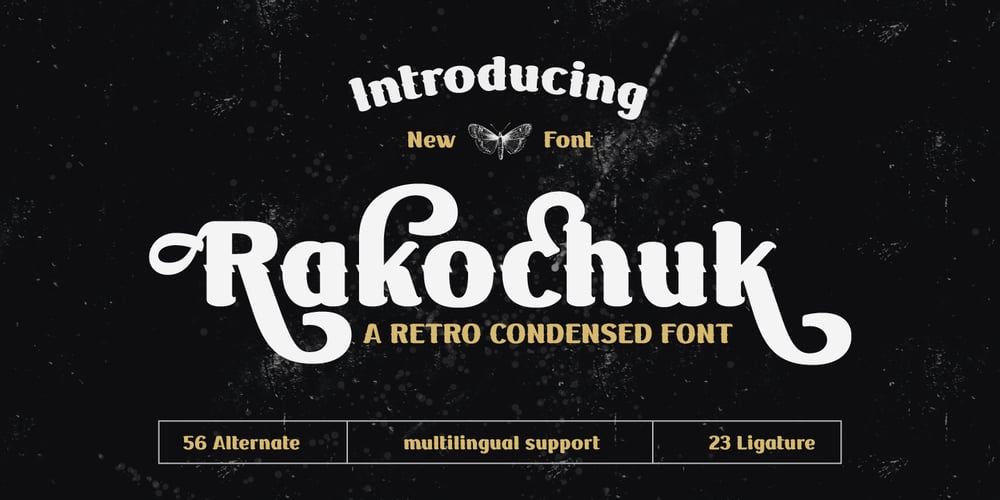
Rakochuk Font Family was designed by Rozikan and published by Twinletter. Rakochuk contains 1 styles and family package options. Rakochuk is the ideal font for your project if you want a typeface that has a classic, retro, and vintage vibe in a condensed form. This typeface has a unique shape that will bring a classic touch to your project and was designed with attention and detail in mind.Not only that, but Rakochuk includes ligature and alternate characteristics, providing you greater freedom in its application, especially when you need a more personal touch in your design. This typeface is appropriate for international projects due to its linguistic support.If you want to bring an elegant classic, retro, or vintage feel to your project, consider Rakochuk. Get it now and set your project out from the crowd!What’s Included :- File font- All glyphs Iso Latin 1- Alternate, Ligature- Simple installations- We highly recommend using a program that supports OpenType features and Glyphs panels like many Adobe apps and Corel Draw so that you can see and access all Glyph variations.- PUA Encoded Characters – Fully accessible without additional design software.- Fonts include Multilingual support